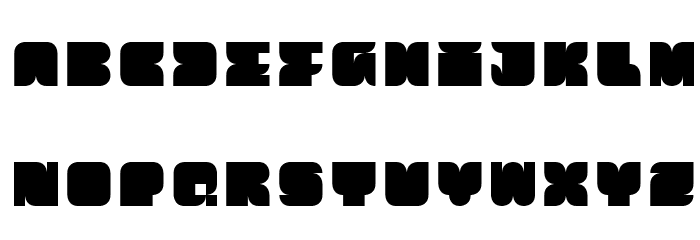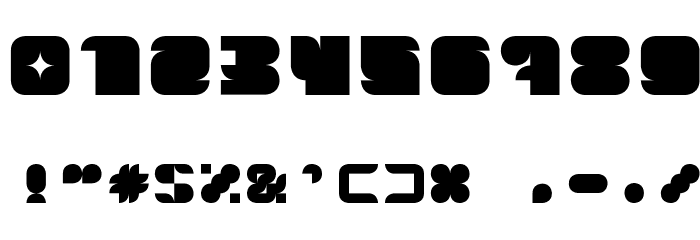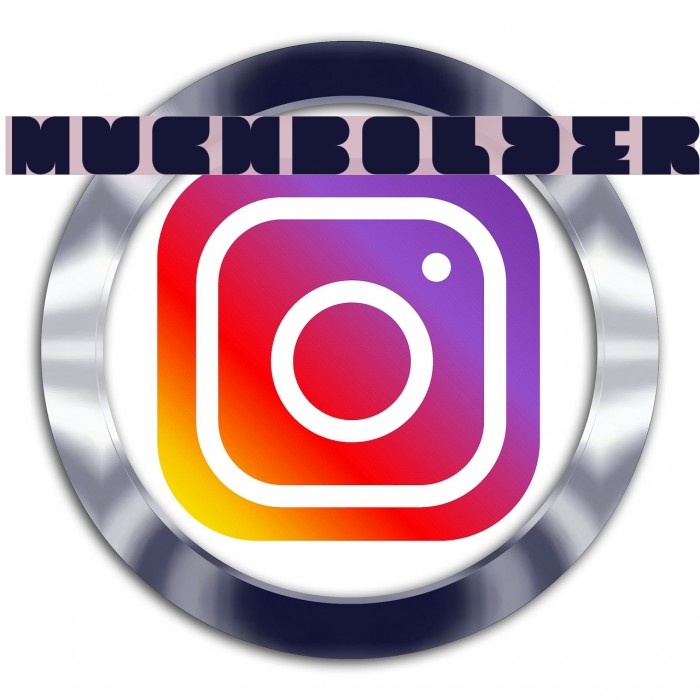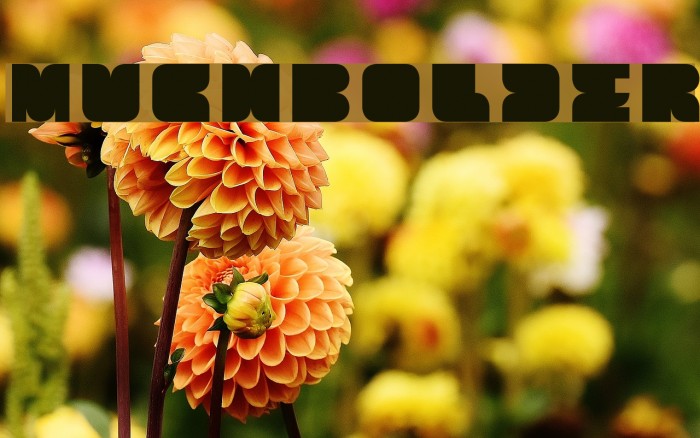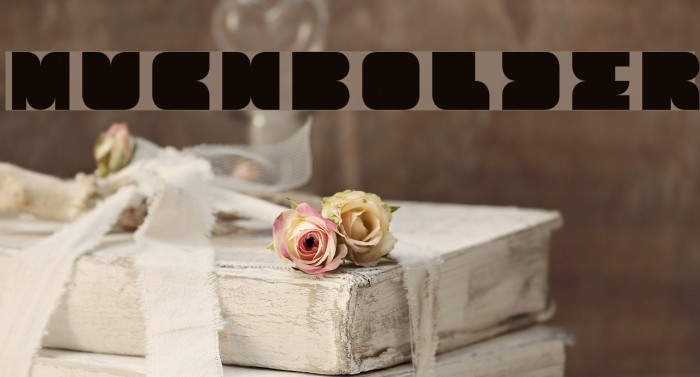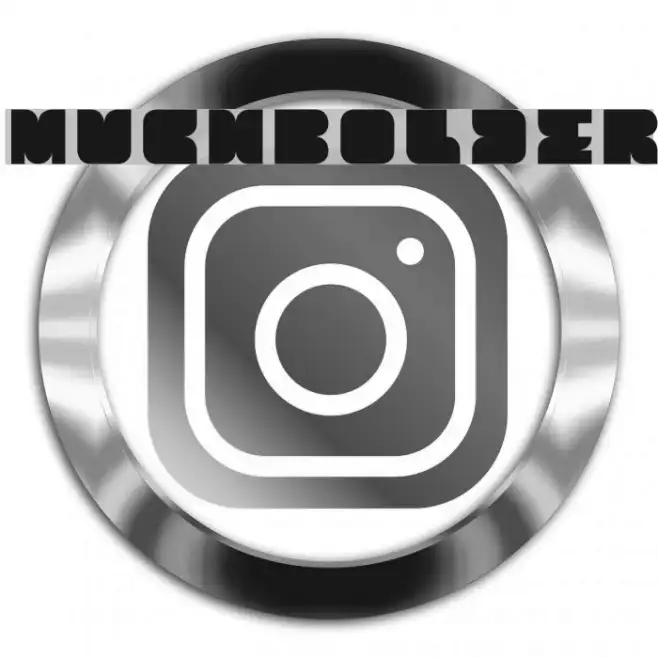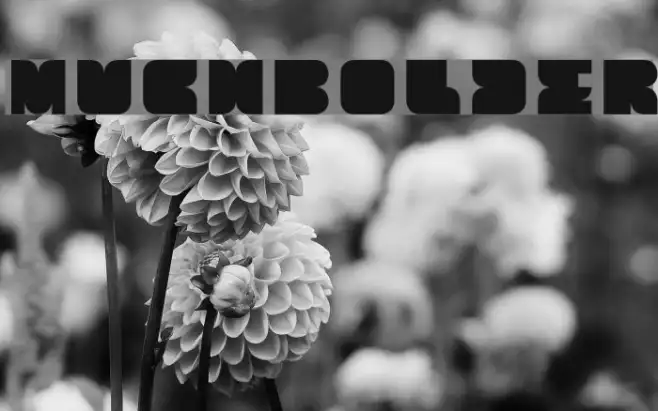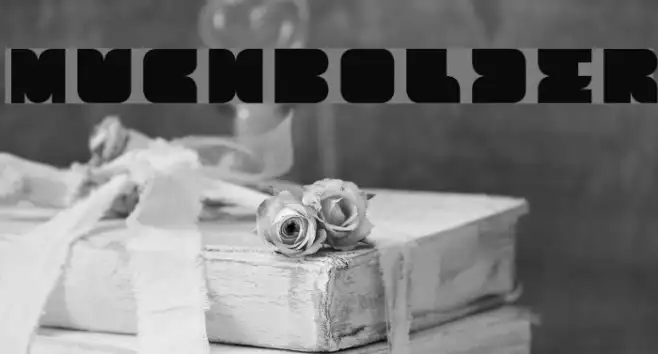
MuchBolder Font
This font is a bold, geometric display typeface characterized by its heavy weight and unique cut-out shapes within each letterform. The design features a strong, impactful presence with wide, block-like characters that create a sense of stability and strength. The uppercase and lowercase letters maintain a consistent style, with the lowercase mirroring the uppercase in form and size. The numerals and special characters follow the same bold and geometric aesthetic, ensuring uniformity across all glyphs. The font's distinctiveness lies in its modern, almost futuristic appearance, making it suitable for attention-grabbing headlines and branding projects.
A bold, geometric display typeface with unique cut-out shapes and a modern aesthetic.
- Proposed Projects: Ideal for branding, poster design, advertising, and any project requiring a strong visual impact.